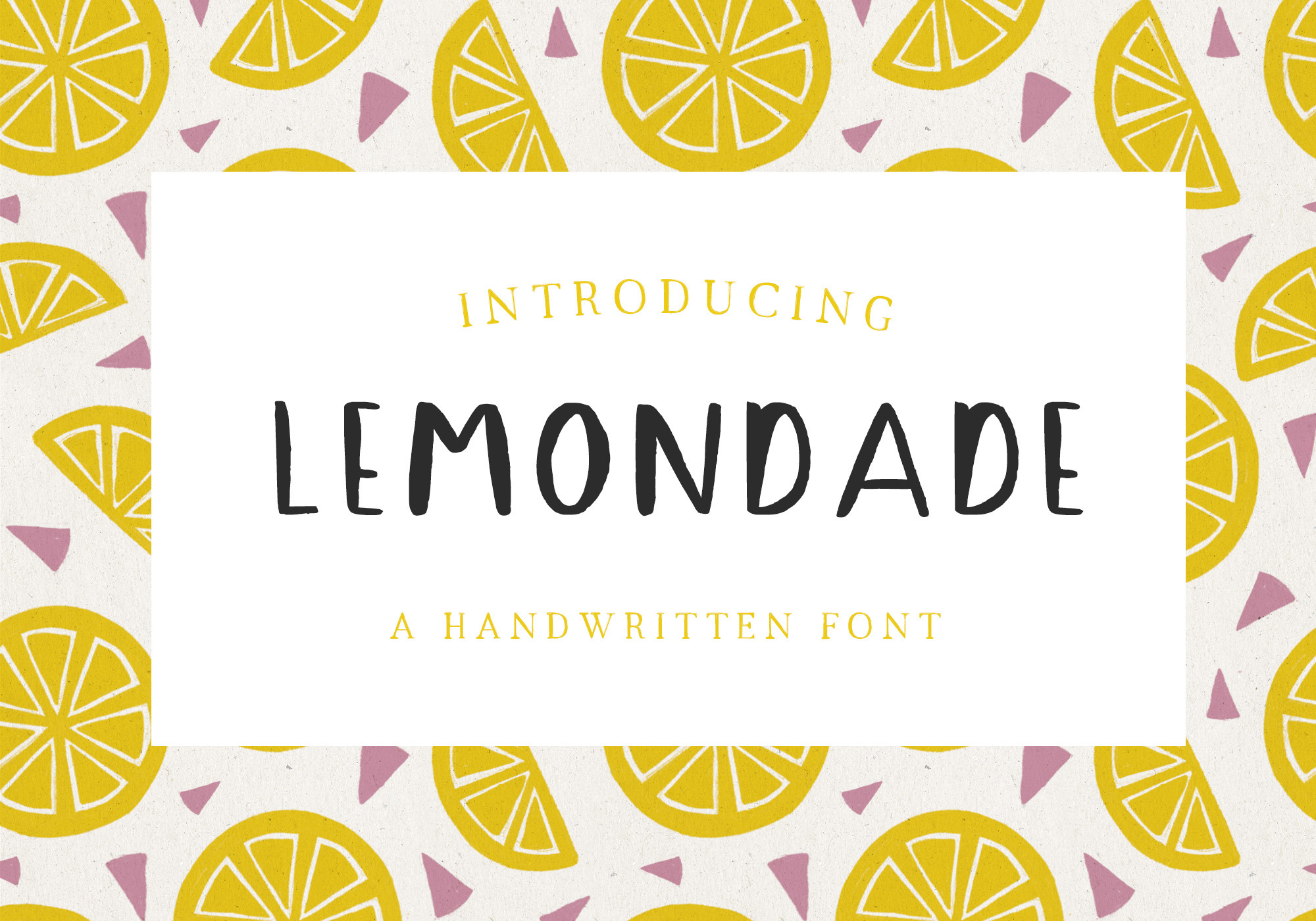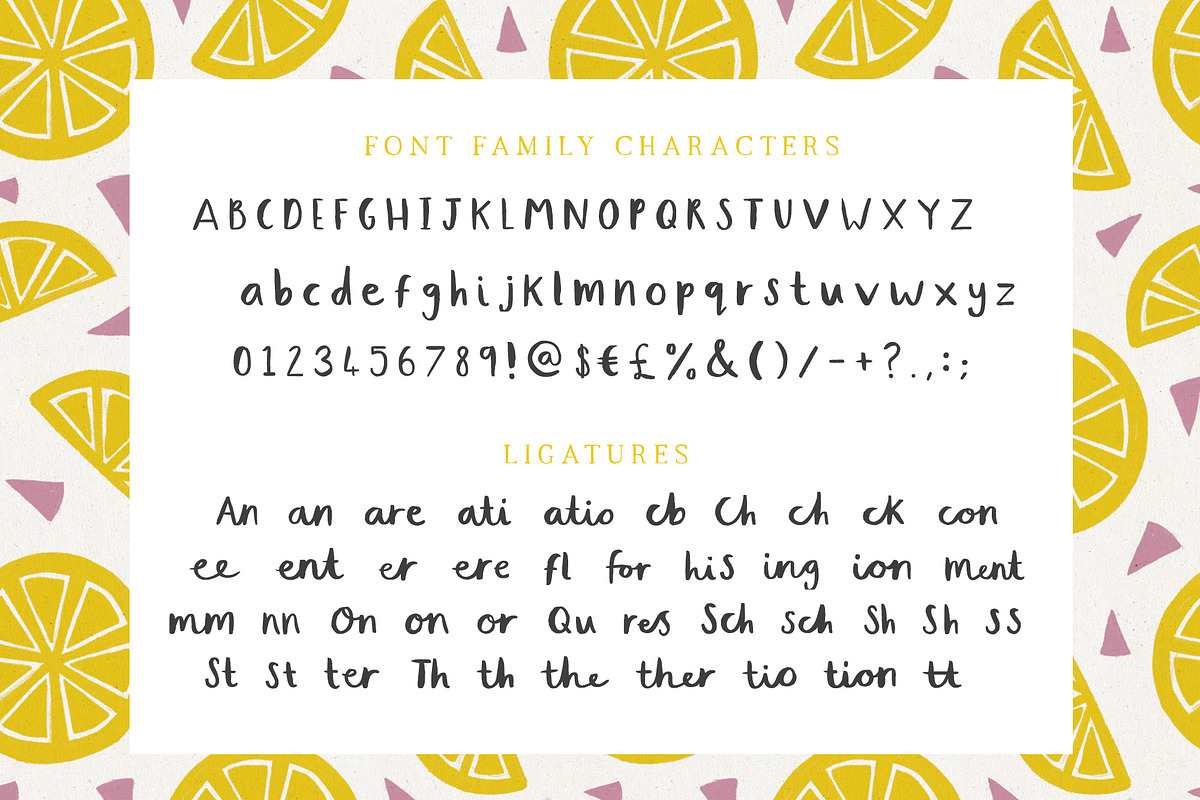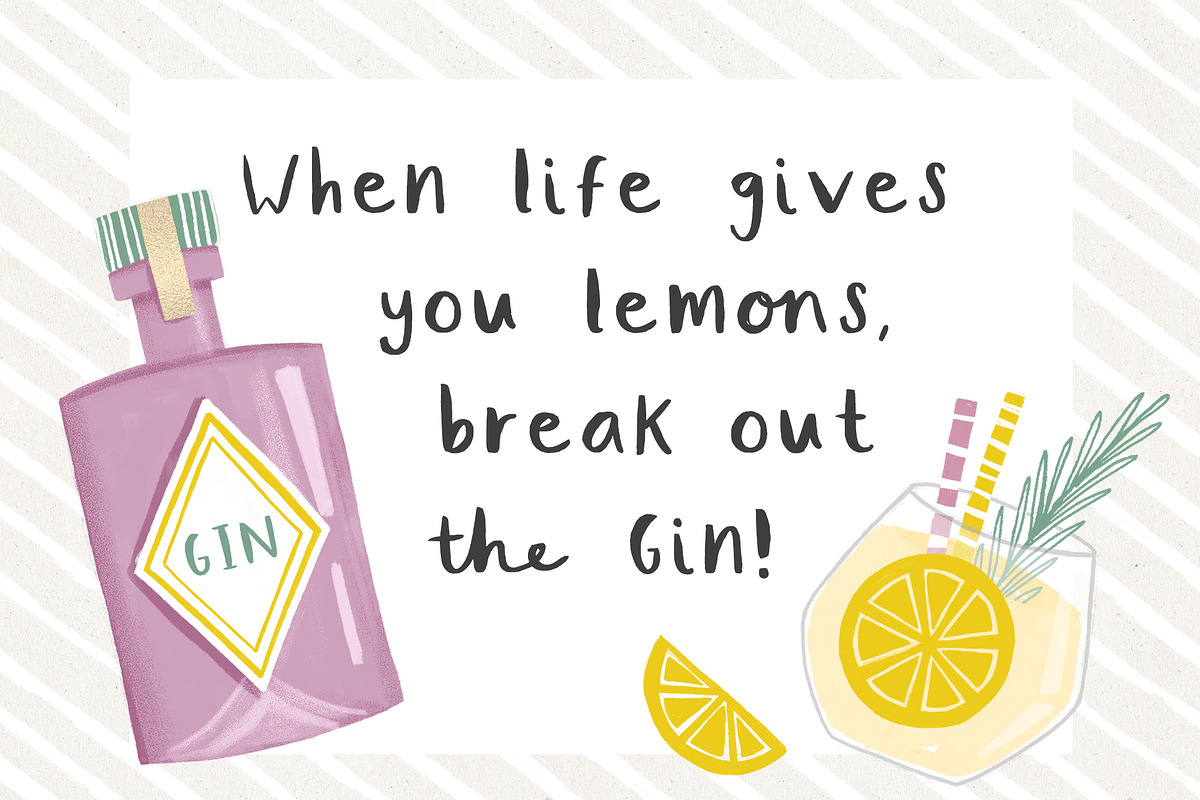
Lemonade Handwritten Font
Lemonade is a unique handwritten font created from my own handwriting using an ink brush pen. Its unique flow and easy signature style makes it perfect to use for logos, signatures, quotes, badges, labels, packaging design, blog headlines or simply use it in your next design project.
I use it myself on greeting cards and childrenswear design!
Lemonade comes with upper and lowercase Basic Characters, Numbers, Marks and Punctuation. As a feature you have also the standard Ligatures and Alternates.